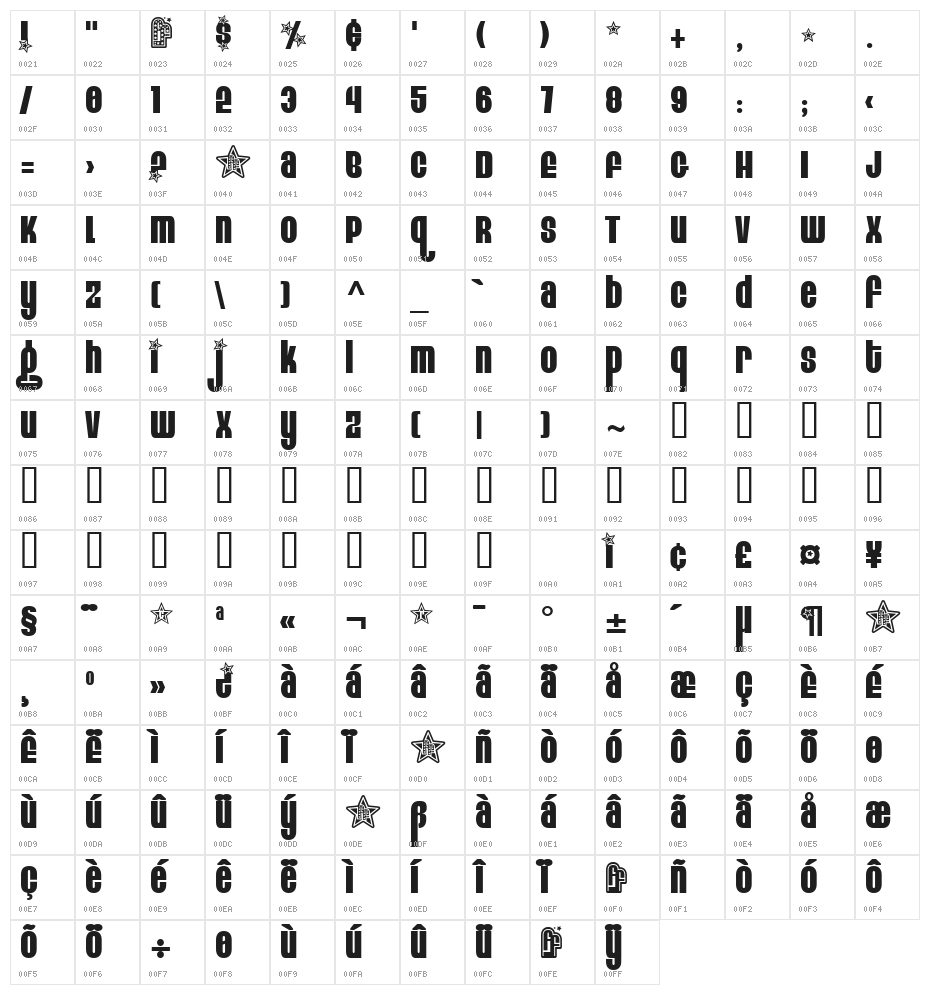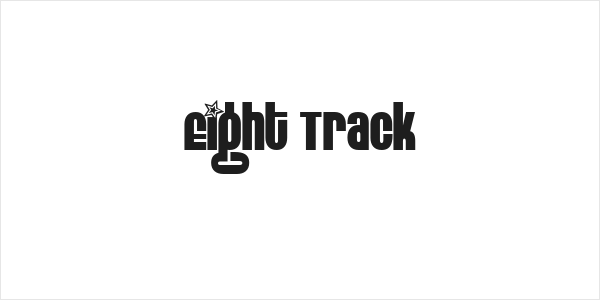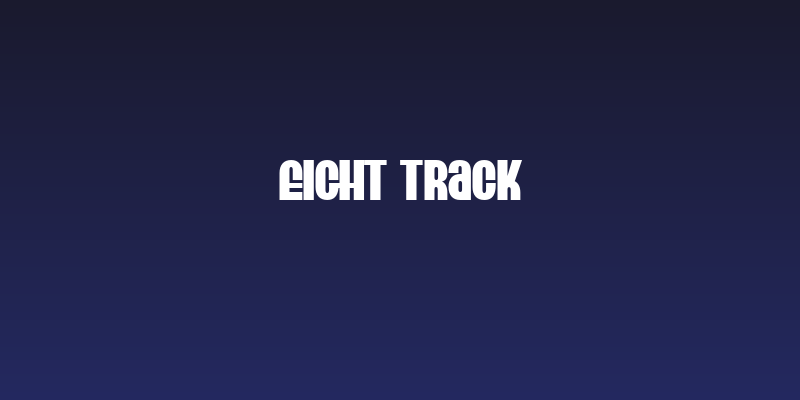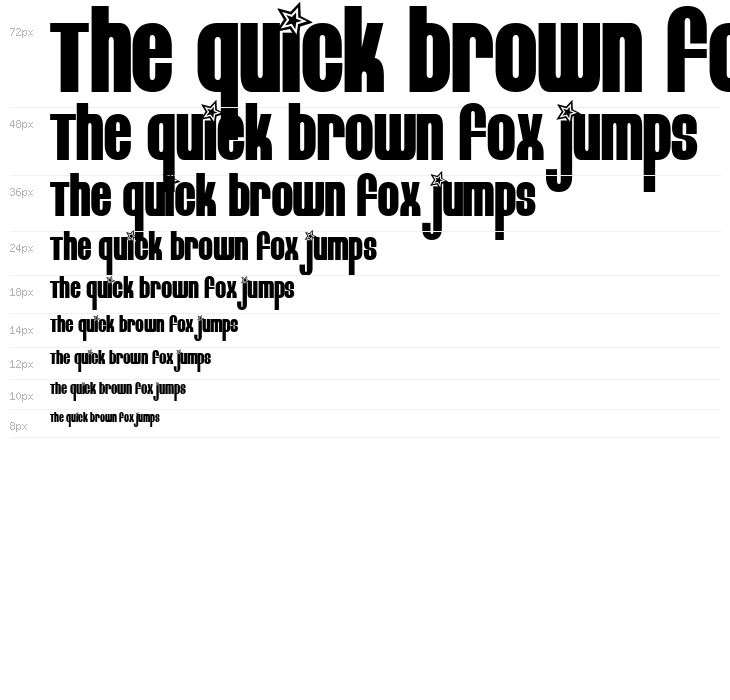
Eight Track Font
Fonts by www.fontalicious.com
| Gesamtstil | Vintage |
| Vorgeschlagene Projekte | Perfect for retro-themed posters, album covers, vintage branding, and playful graphic designs. |